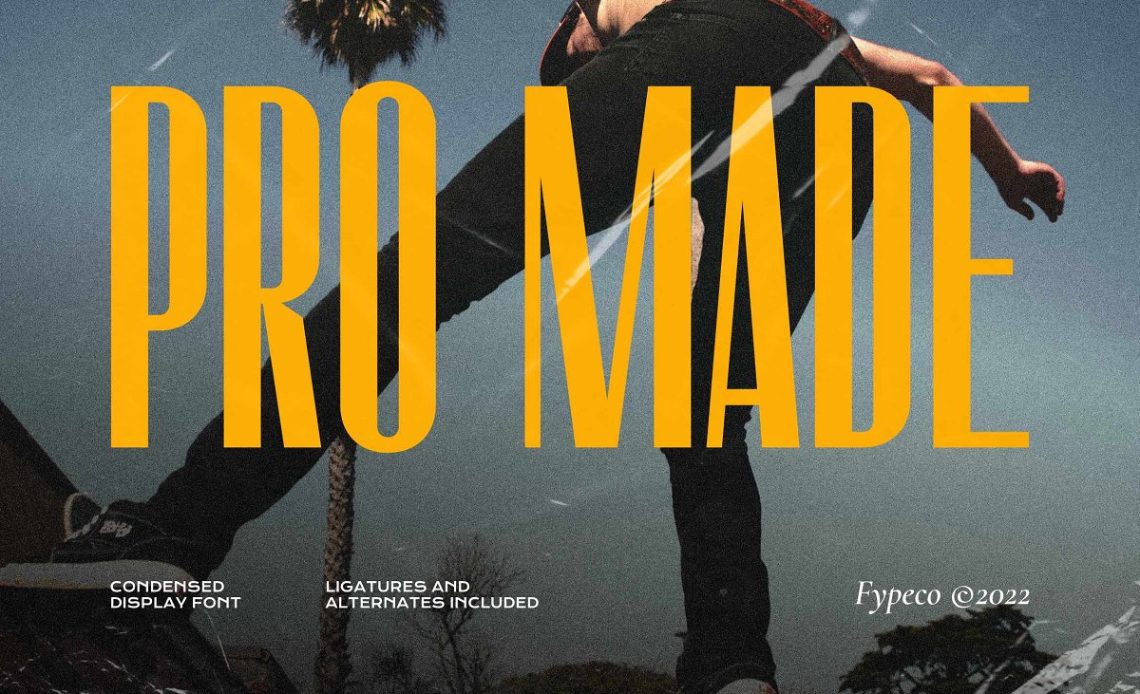
Looking for the best font for a modern logo? Look no further than Pro Made - Condensed Display Font, created by Rizki Julianto. This sans-serif font family is designed to make a statement and grab attention.
With its condensed display style, Pro Made is perfect for headlines, billboards, magazines, websites, titles, posters, branding, and logos. But this font isn't just about style - it's also packed with features to help you make your project stand out.
Pro Made includes a range of ligatures, alternates, and other features, allowing you to customize your design and create a truly unique look. Whether you're working on a branding project, designing a website, or creating a poster, Pro Made has everything you need to take your design to the next level.
And with multilingual support, Pro Made is perfect for designers working on projects for a global audience. You'll have access to uppercase and lowercase letters, alternatives, ligatures, numerals, and punctuation - everything you need to make your design shine.